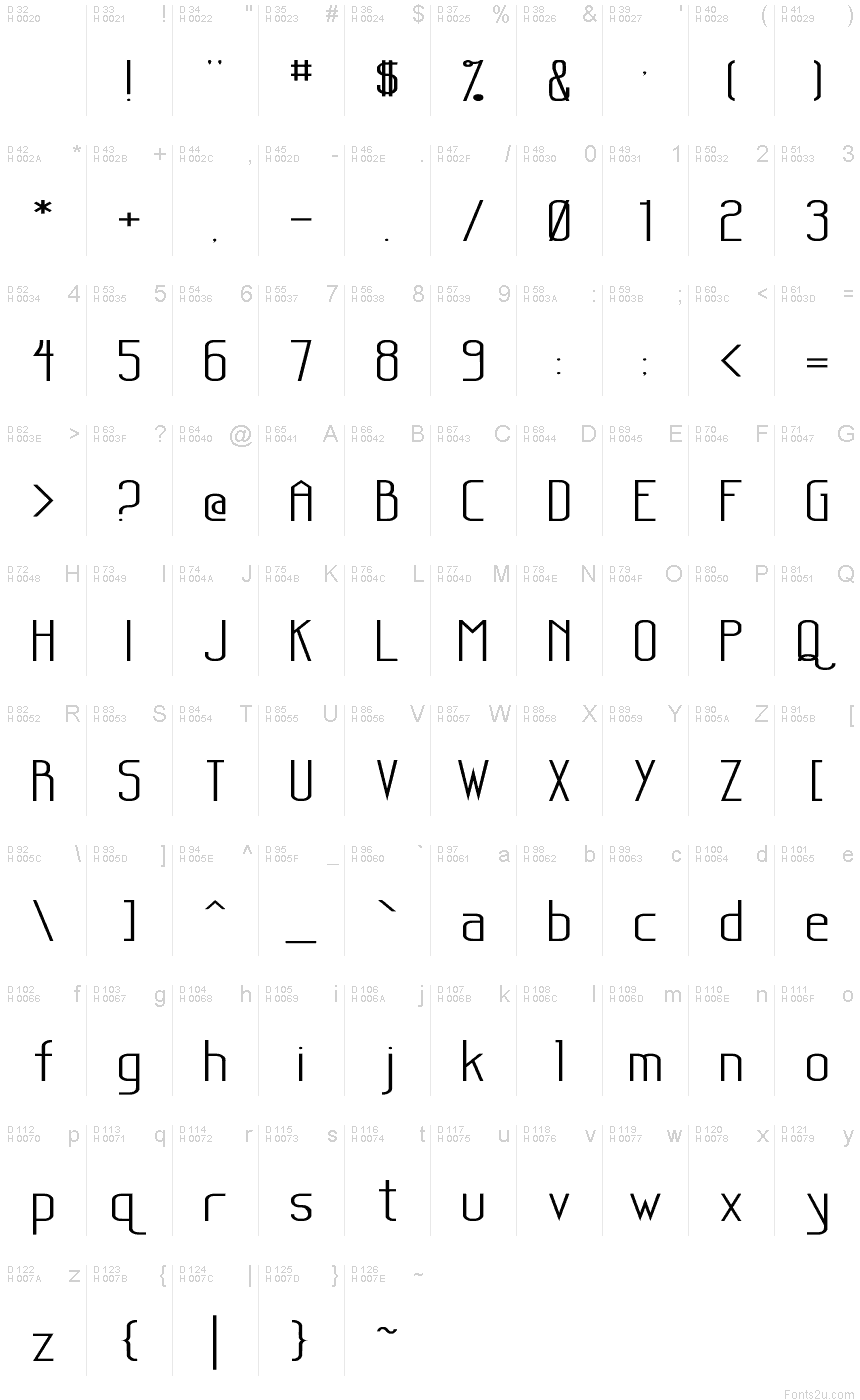
Sanity Wide
Sanity Wide, by Dan Redding of B/W Fontworks, is a free geometric sans serif with a late-90s techno calm. The letters feel pared down and airy, built from smooth rounded turns and very light strokes, while the tall T and simple i keep the set looking cool, spare, and a little futuristic.
It works well for posters, record sleeves, interface-inspired branding, gallery flyers, and title cards where that clean synthetic mood carries the message. As a free font, it also makes sense for short headlines, logos, and monograms, because the alphabet has enough quirks to feel distinctive without getting busy.